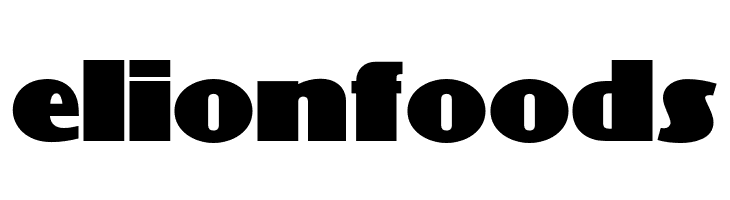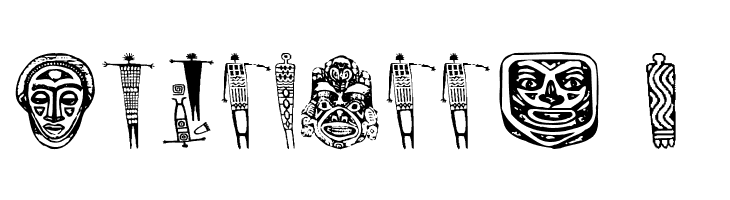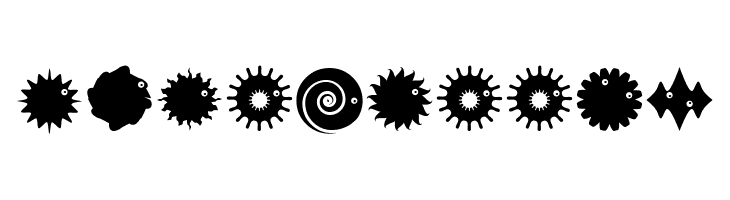
• pelos
• Persons
Minimalist pictogram icons representing people and activities.
• PetitButtoni
A quirky decorative dingbat font with playful abstract shapes.
• PetrasBauhausXmas
A decorative font with festive Christmas-themed elements and geometric backgrounds.
• PetroglyphMarks
A font inspired by ancient petroglyphs, featuring bold, abstract symbols in square frames.
• Petrographs
Hand-drawn, petroglyph-inspired decorative font with tribal motifs.
• PhaistosFingers
A decorative set of pictographic symbols with an ancient script aesthetic.
• Phatt Phreddy NF
A bold, block-like font with a strong, modern presence.
• PhattPhreddyNF
A bold, modern font with thick strokes and a strong presence.
• Picollection
A bold pictogram font with household and geometric icons.